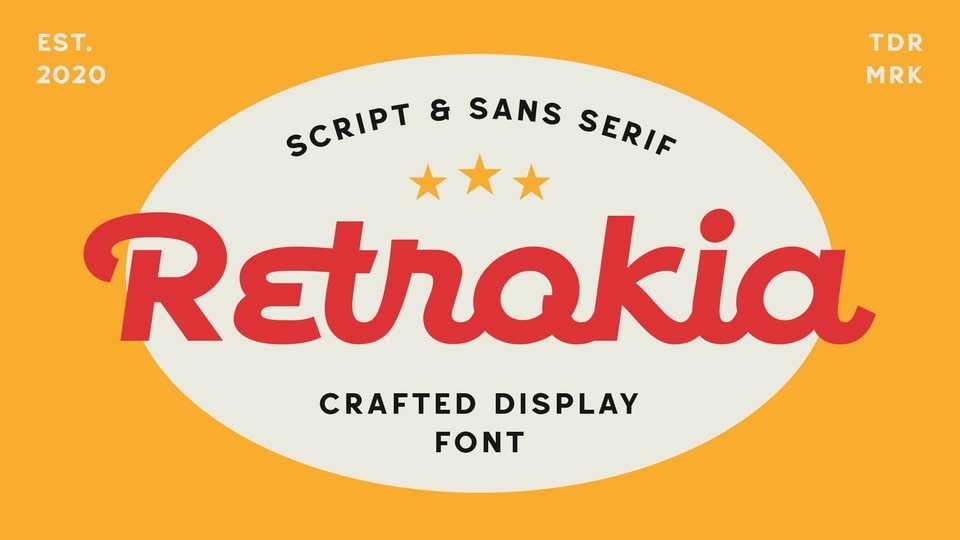
Retrokia Script Font › Fontesk – Fonte Grátis
Download Retrokia font a strong and dynamic script typeface with a retro vibe. The Retrokia matches apply in some designs such as the logo, poster, label, badge, packaging, t-shirt, branding, quotes and more custom design.